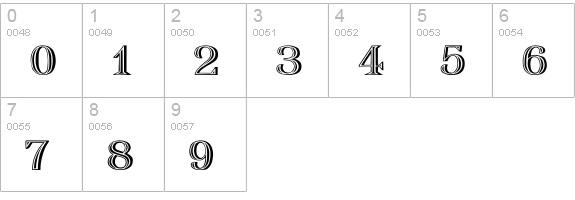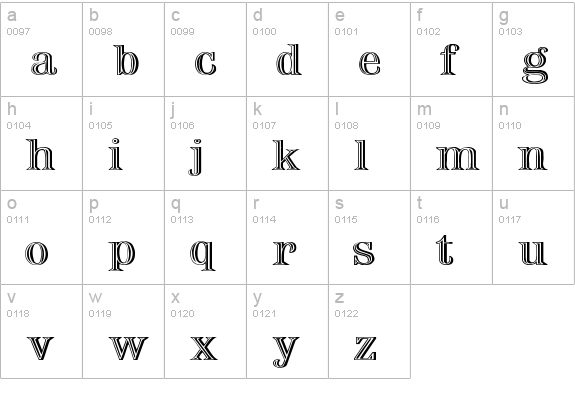
Nauert Wd Plain Font Details
Nauert Wd Plain is a stunning font that exudes elegance and simplicity. With its clean lines and balanced proportions, this font is perfect for a wide range of design projects. Whether you're creating a logo, designing a website, or crafting a poster, Nauert Wd Plain will effortlessly enhance your work with its timeless appeal. What sets Nauert Wd Plain apart is not only its exceptional design but also its accessibility. This font is freely available to download at FontsMarket.com, making it a fantastic option for both personal and commercial use. Whether you're a professional designer or a hobbyist, you can enjoy the benefits of Nauert Wd Plain without any cost. The versatility of Nauert Wd Plain is truly impressive. Its bold and clear letterforms make it highly legible even at smaller sizes, ensuring that your message is always conveyed with clarity. Additionally, the font's wide width adds a touch of modernity and uniqueness, making it stand out from the crowd. Nauert Wd Plain's simplicity and elegance make it a go-to choice for a variety of design projects. Its timeless appeal ensures that your work will remain visually appealing for years to come. So why wait? Download Nauert Wd Plain for free at FontsMarket.com and elevate your designs to new heights.